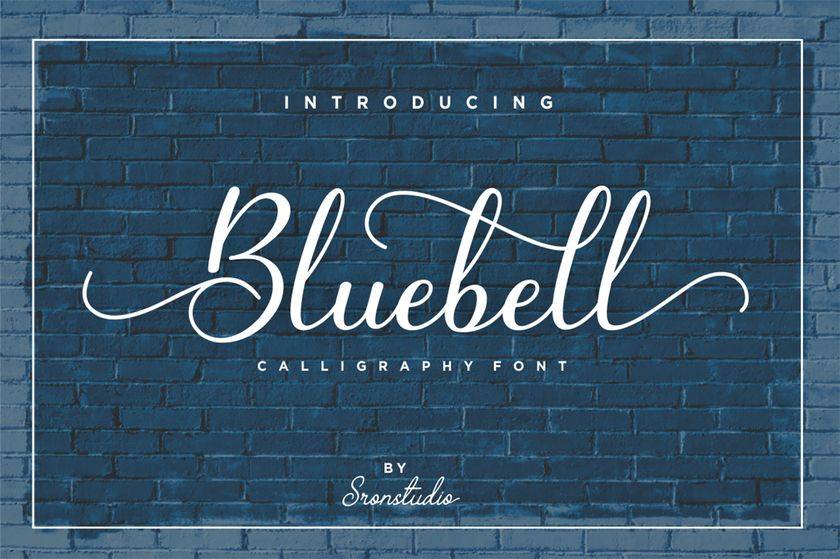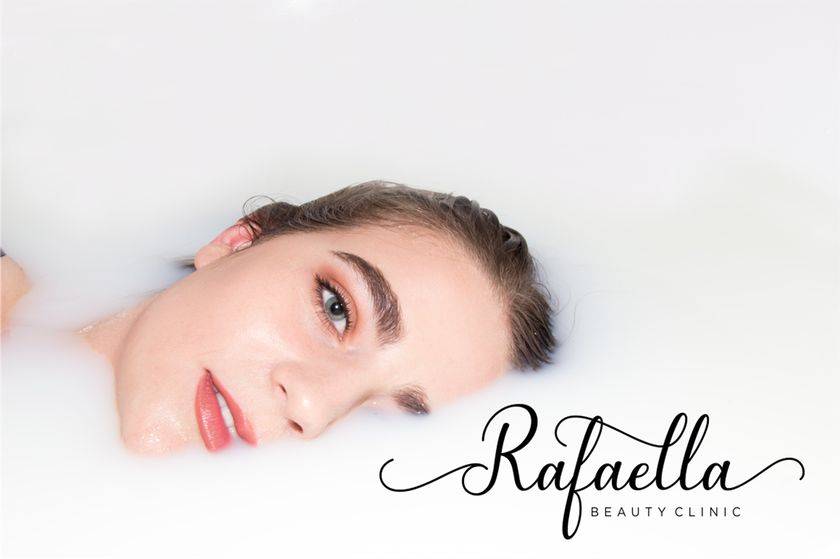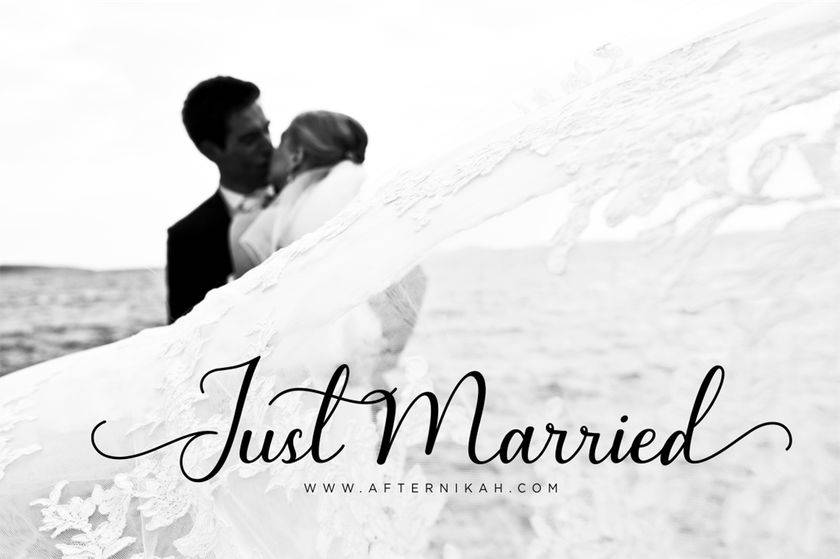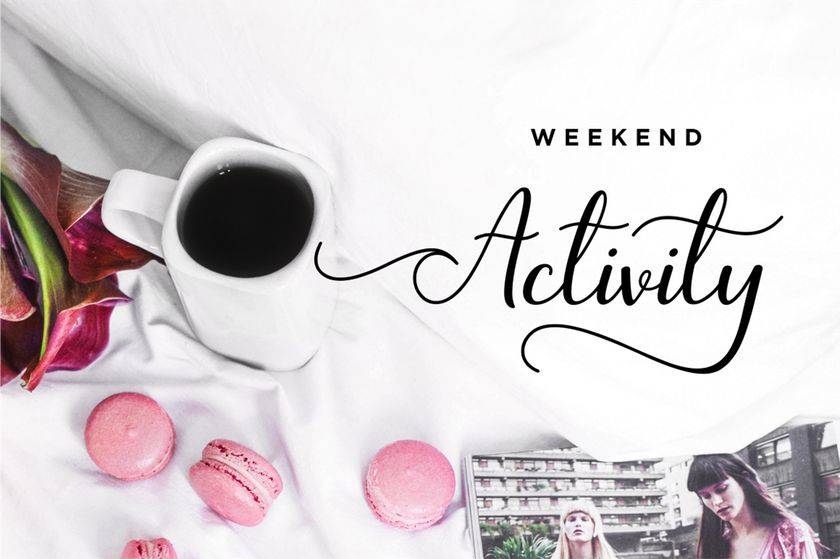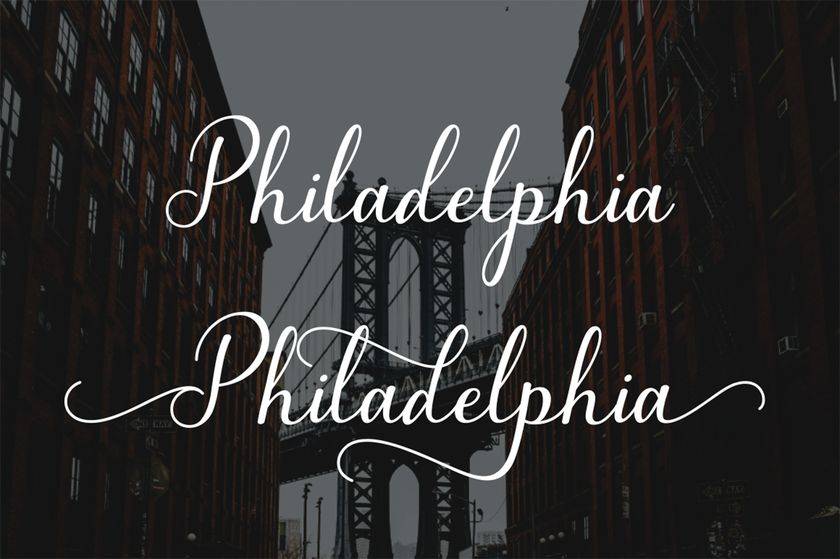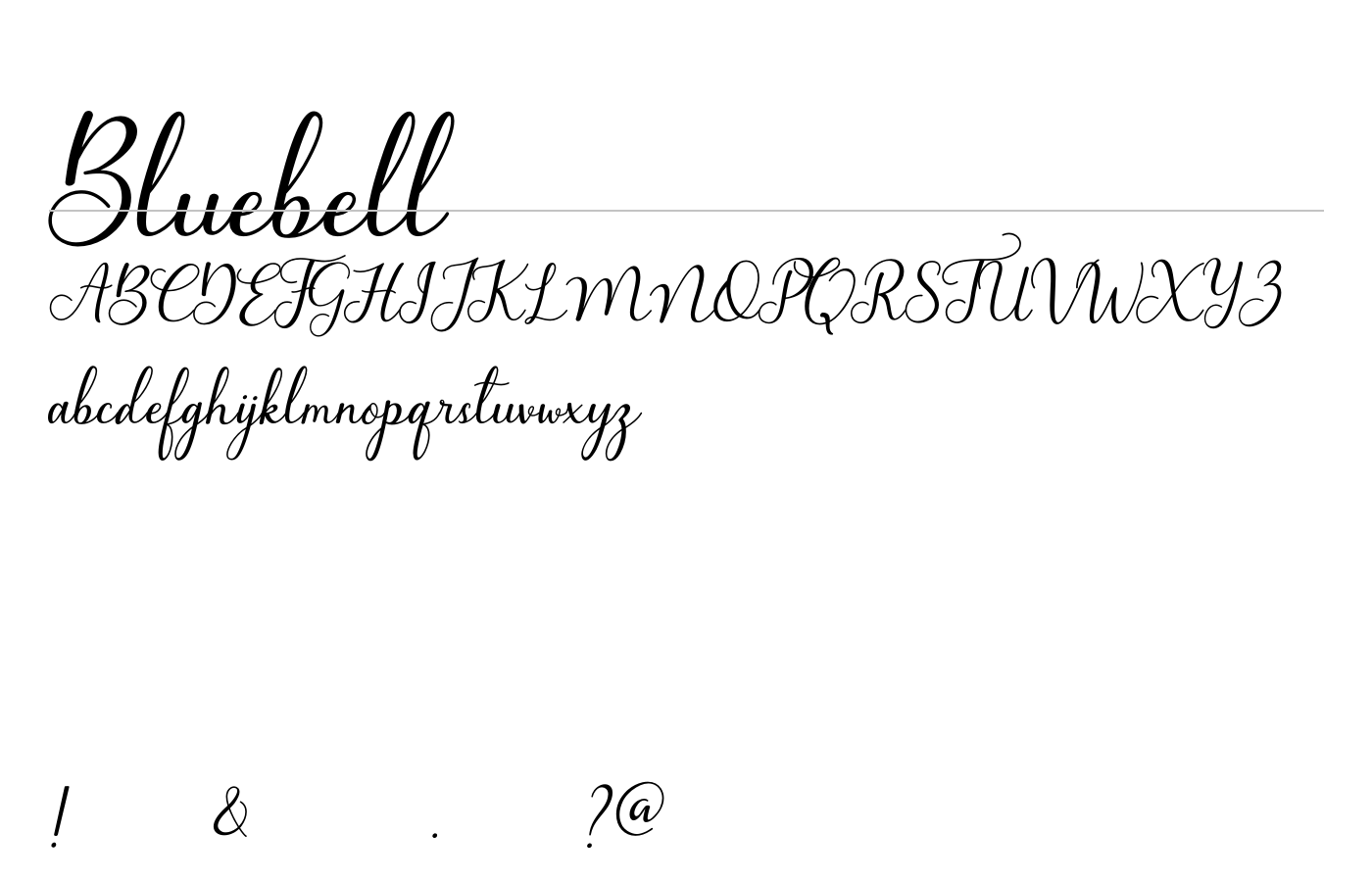
Bluebell is an elegant, light script font characterized by its graceful, flowing letterforms and delicate contrast between thick and thin strokes. Its tall, narrow proportions and carefully crafted swashes give it a refined and sophisticated feel, perfect for luxury branding, wedding invitations, and stylish editorial design. This font works best in larger sizes where its intricate details and fine curves can truly shine, adding a touch of classic charm and romantic flair.
Bluebell Font
About Bluebell Font